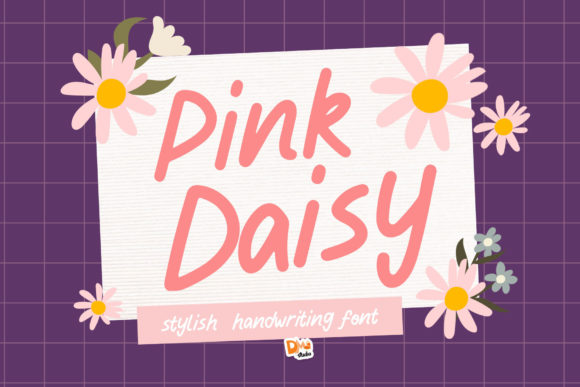
Step into the world of Pink Daisy, a script font family that will infuse your designs with a touch of heartfelt elegance. Meticulously crafted to capture the essence of true handwriting, Pink Daisy exudes a sense of authenticity and charm that will make your creations shine. Whether you're a seasoned designer or just starting out, this font family is your perfect companion for adding a personal touch to your projects.
Indulge in the beauty of Pink Daisy's meticulously crafted glyphs, each one a testament to the art of digital calligraphy. Its graceful curves and fluid lines will effortlessly elevate your designs, adding a touch of sophistication and timeless charm. Experience the joy of creating logos, branding elements, wedding invitations, social media graphics, and more, all infused with the unique character of Pink Daisy.
With Pink Daisy at your fingertips, you'll unlock endless possibilities for expressing your creativity. Let your imagination soar as you explore the world of hand-lettered designs, transforming your ideas into tangible works of art. Whether you're a seasoned pro or just starting your creative journey, Pink Daisy will be your trusted companion, guiding you towards stunning results.
Don't miss this chance to elevate your designs to new heights with Pink Daisy. Embrace the beauty of handwritten typography and watch your creations come to life with a touch of authenticity and charm. Join the countless designers who have discovered the magic of Pink Daisy and let your creativity blossom like never before!